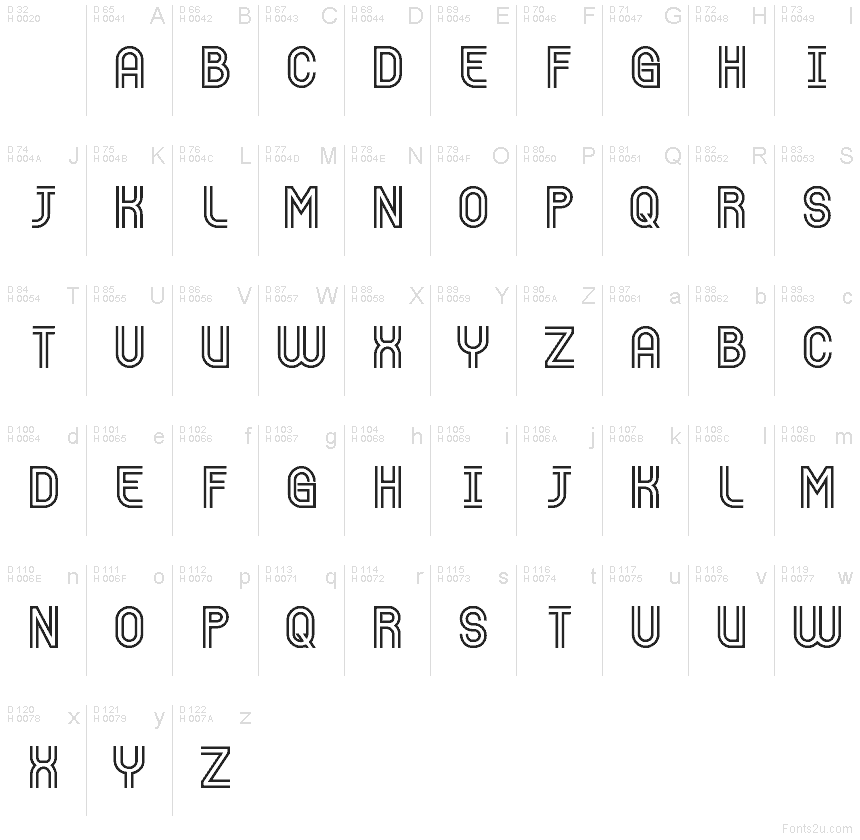
Bernard Light
Bernard Light font by Vladimir Nikolic is a free outlined sans serif typeface. Part of the Bernard family, it draws its character from clean double-line strokes that feel both architectural and playful, like neon tubing bent into crisp geometric letters. The generous spacing and squared curves keep every word airy and legible, even as the outline structure adds a subtle sense of motion and depth.
Using Bernard Light, headlines instantly gain a graphic, poster-ready punch without feeling heavy or cluttered. This free font shines on event posters, retro tech branding, album covers, bold packaging, editorial titles, and social media graphics that need to stand out at a glance. Try pairing Bernard Light with a simple solid sans for body text and let Bernard handle the big, loud moments at larger sizes.